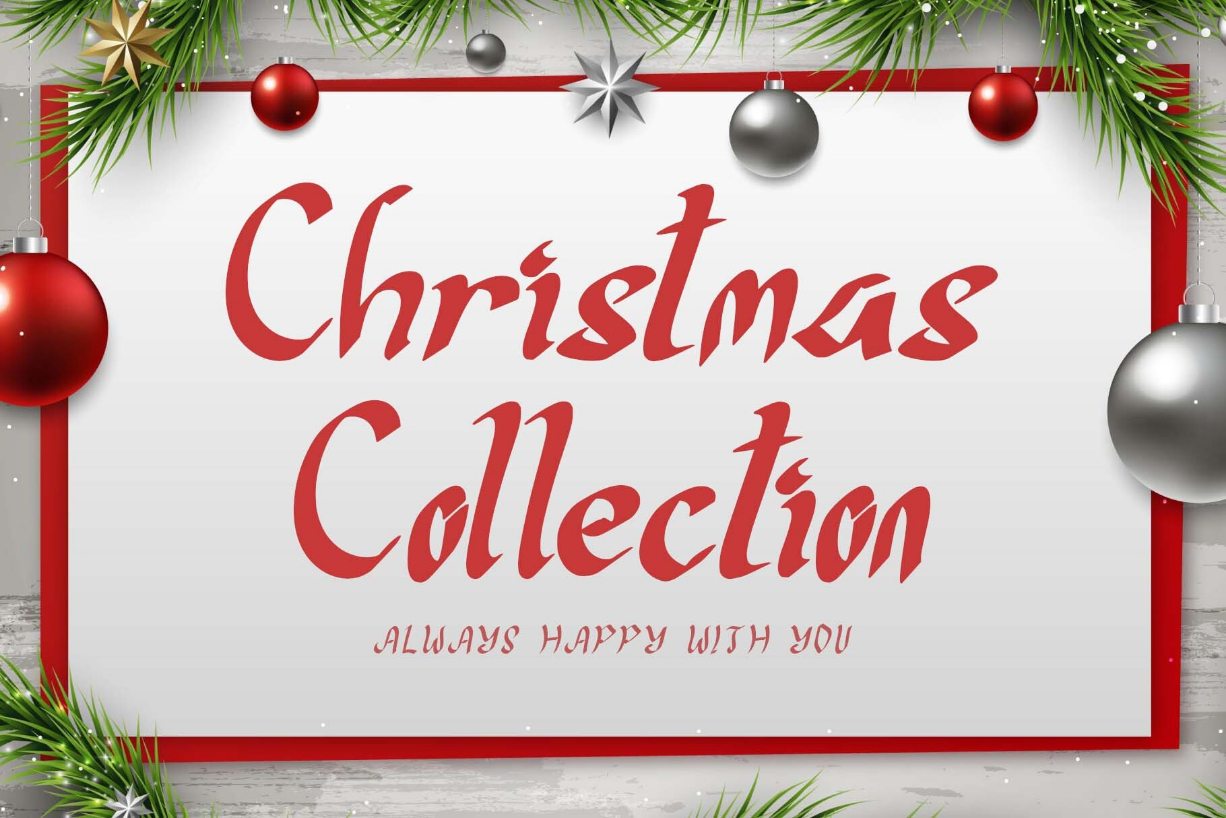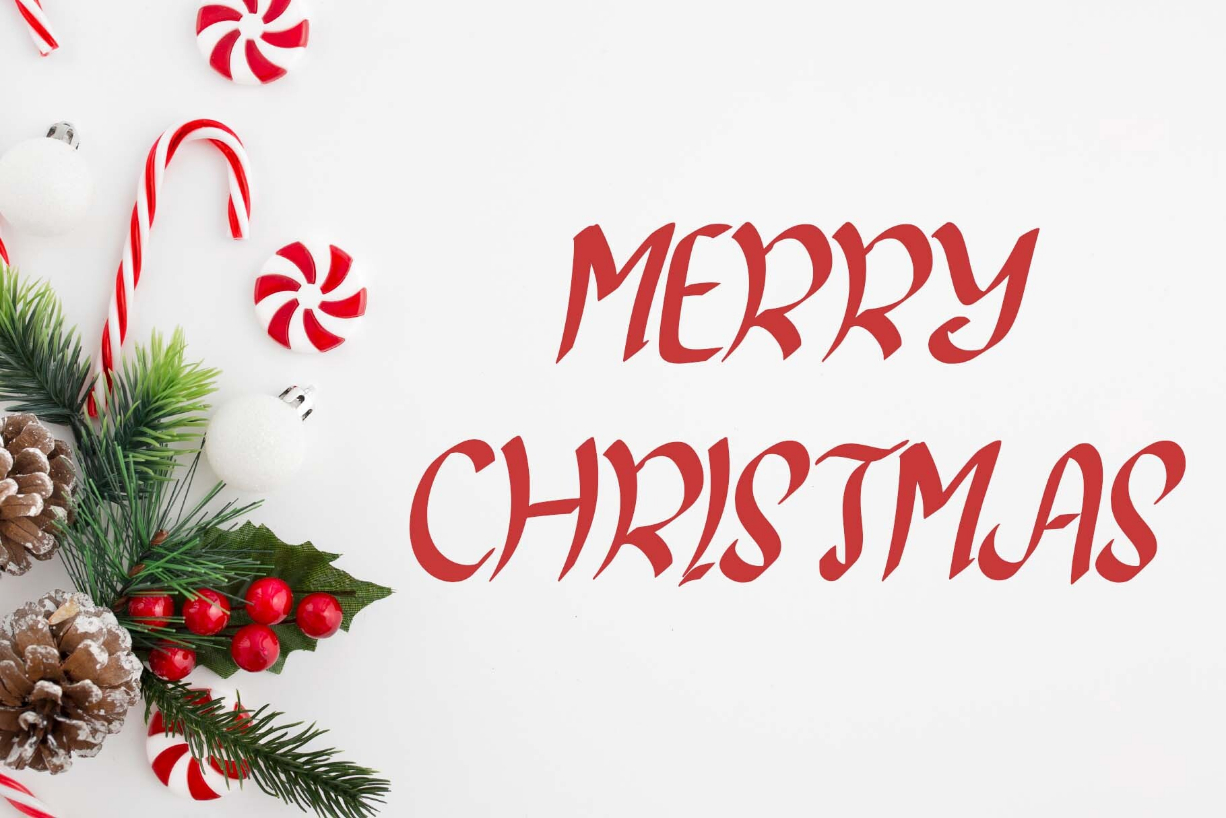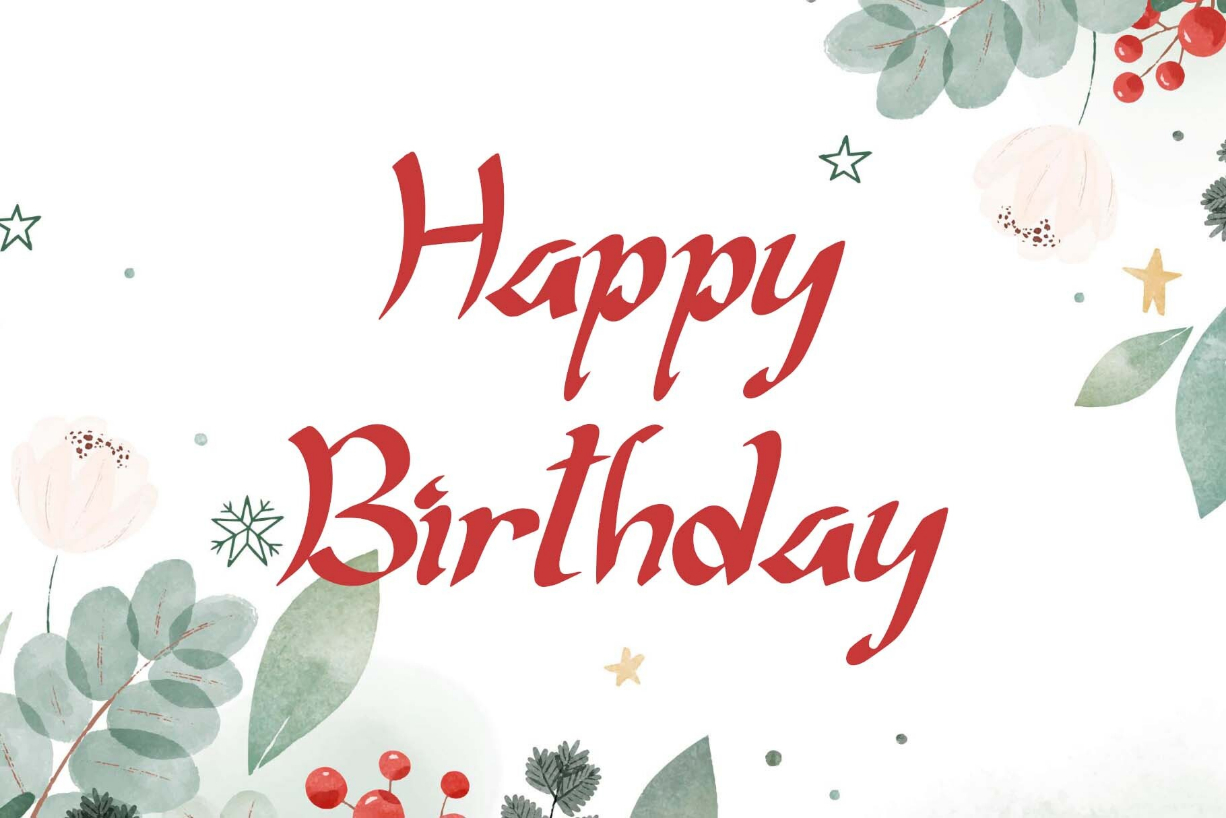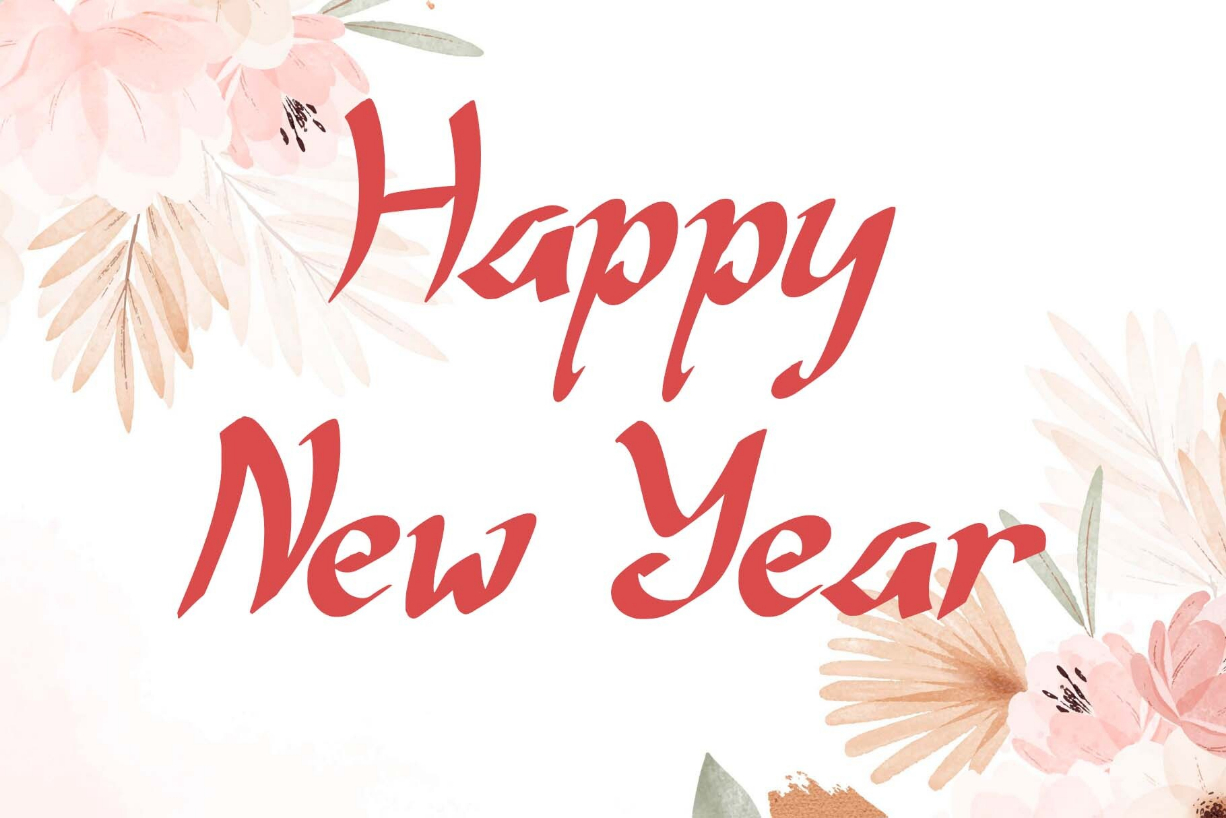
About Christmas Collection Font
Christmas Collection is an elegant blackletter font. This font is equipped with uppercase, lowercase, numerals, punctuation, and multilingual support. Very suitable for Christmas, Santa, weddings, engagements, stickers, logos, banners, branding, Halloween, autumn, winter, Valentine’s, and others.